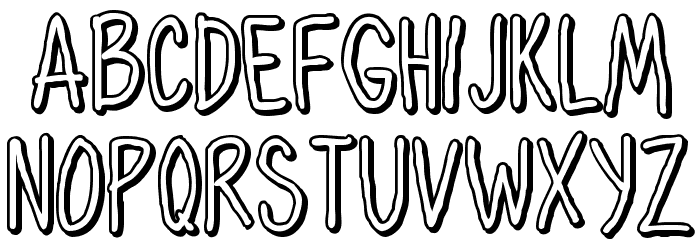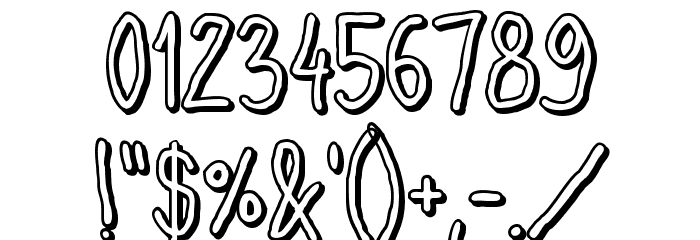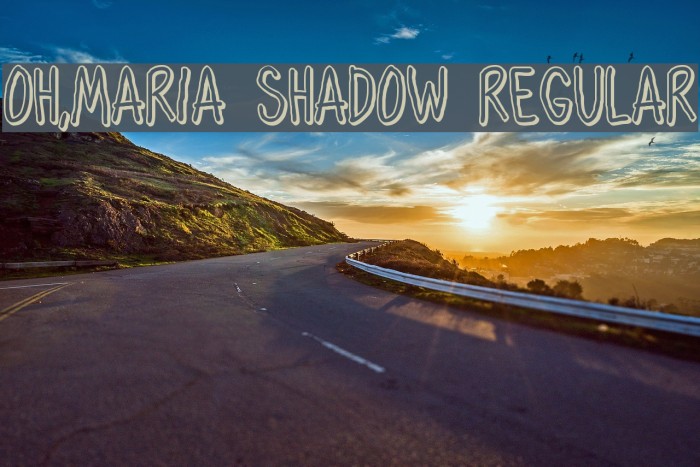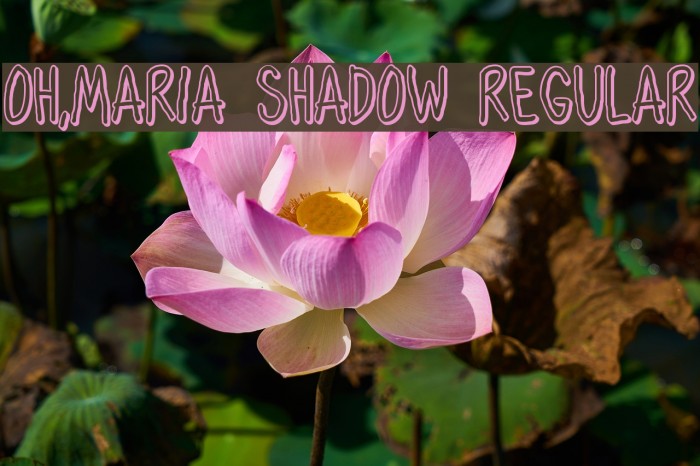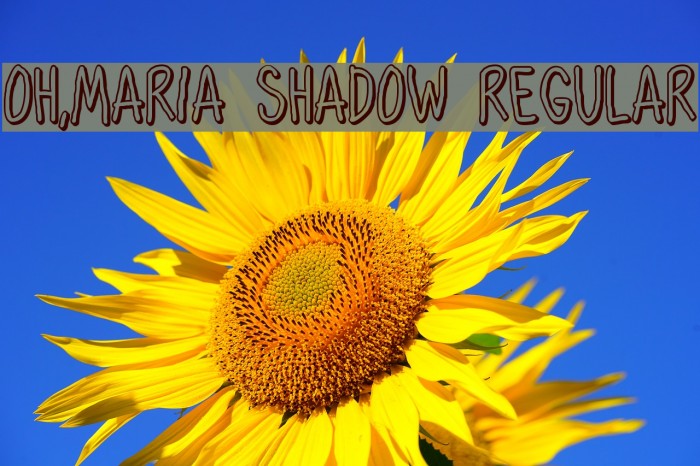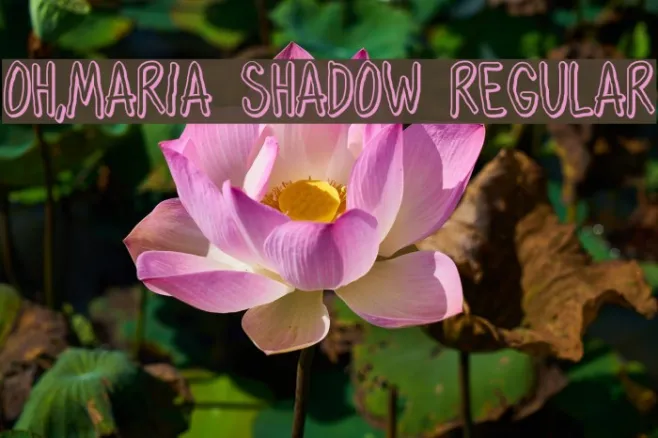
Oh,Maria Shadow Regular Font
This font features a playful and bold design with a distinct shadow effect that gives it a three-dimensional appearance. The characters are hand-drawn with a casual, relaxed style, making it ideal for projects that require a fun and informal touch. The uppercase and lowercase letters maintain a consistent style, with rounded edges and a slightly irregular baseline that adds to its charm. The numbers and special characters are equally expressive, ensuring a cohesive look across all text elements. Its unique shadowing enhances readability while adding depth, making it stand out in any design.
A playful, hand-drawn font with a bold shadow effect for a fun, informal look.
- Proposed Projects: Ideal for children's books, playful branding, posters, and creative social media graphics.